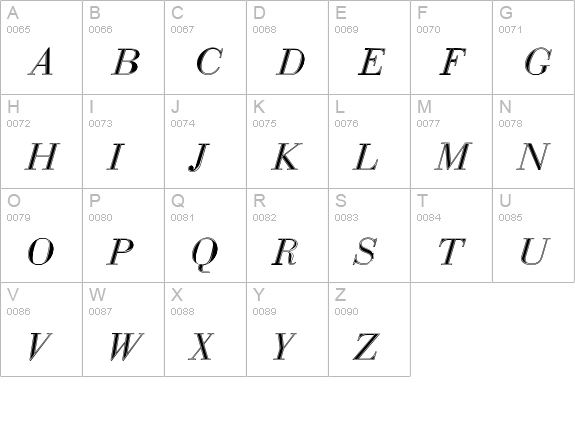
Bauer Bodoni D Regular Italic In1 is the standard, neutral, italic variant in the Bauer typeface family \xE2\x80\x94 well suited to general body text, paragraphs, and standard typographic work.
The Bauer Bodoni D Regular Italic In1 font is a sophisticated and elegant typeface that exudes timeless beauty and classic appeal. Its slanted italic style adds a touch of flair and sophistication to any design project. The flowing curves and graceful serifs of this font convey a sense of refinement and sophistication. What sets Bauer Bodoni D Regular Italic In1 font apart is that it is available for free download at FontsMarket.com. This means that you can easily access this exquisite font without any cost, making it a valuable addition to your font library. Whether you are working on a branding project, editorial design, or any other creative endeavor, Bauer Bodoni D Regular Italic In1 font is sure to elevate your work with its timeless elegance and charm.